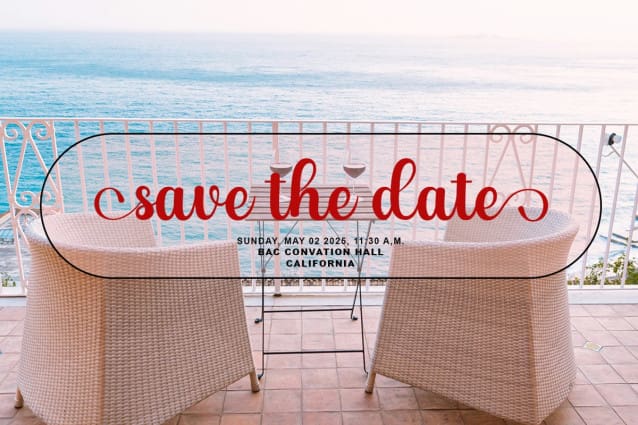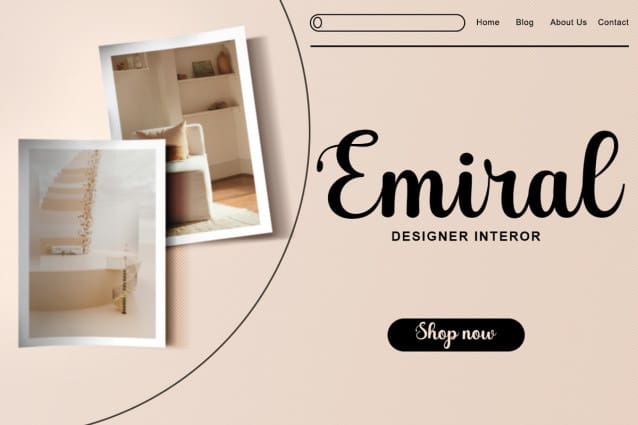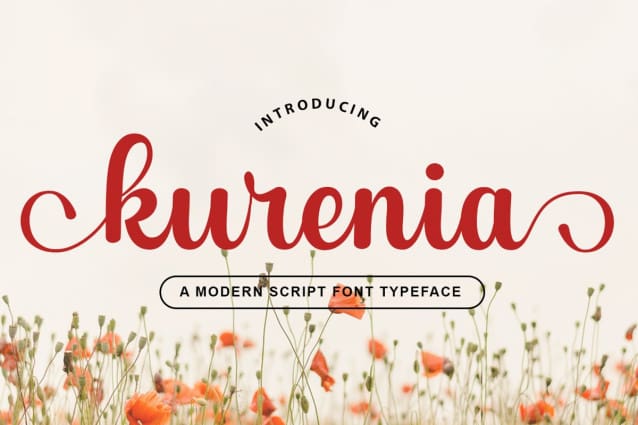
Kurenia Script Font
Kurenia Script Font is a script font characterized by its elegant and feminine style. This font is typically used for designs that require a delicate and beautiful touch, such as wedding invitations, branding, or other creative projects. The letterforms flow smoothly with varying thickness, adding an artistic feel. Kurenia often includes ornaments or ligatures that enhance the overall appearance of the text.